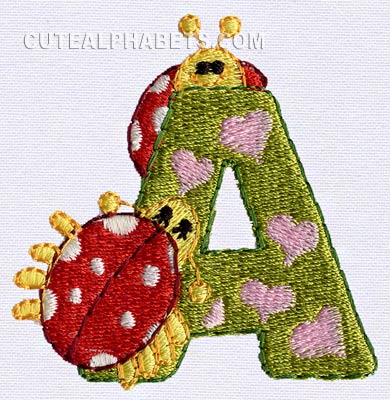
No wonder the Ladybird/Ladybug at the top is peeking over in fear that "If he finds me it might be 'catchy'."
Don't worry, Veronika!!! I love the 'A' just the way it is and it has personality and character...... :}
Thank you once again for creating this lovely font with so much detail in it. As usual I adore your colour choices and the stitch choices and I'll certainly be making good use this font in the near future.
In a fantasy world nothing has to be politically correct...lol...darling font.
LOL- I don't think Miss Veronika is worried-this is cute embroidery not anatomically correct embroidery. This is a really cute alphabet~linda~
He,he,he; I didn't even notice! Real live bugs are not my favorite things, so I may not have noticed in real life, either.
The font is adorable, so the ladybug could have 18 legs, and I wouldn't mind a bit.
Top points to you Alma, for your eye for detail! That ladybug heard it was a good thing to be 'outside the box', so had a chat to Rolf Harris and got his help to set up a couple of wooden ones, I'm thinkin'!
It6 is a cute font - I shared it with Rick today and he was telling me of all the things that I could stitch this set on - I had to laugh right out loud.